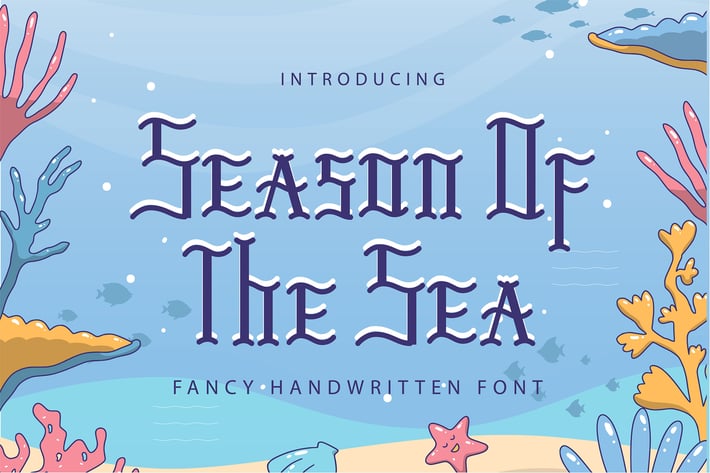
Season of the Sea | Fancy Handwritten Font
Season of the Sea | Fancy Handwritten Font with a calligraphy style, So beautiful on invitation like greeting cards, branding materials, business cards, quotes, posters, and more!